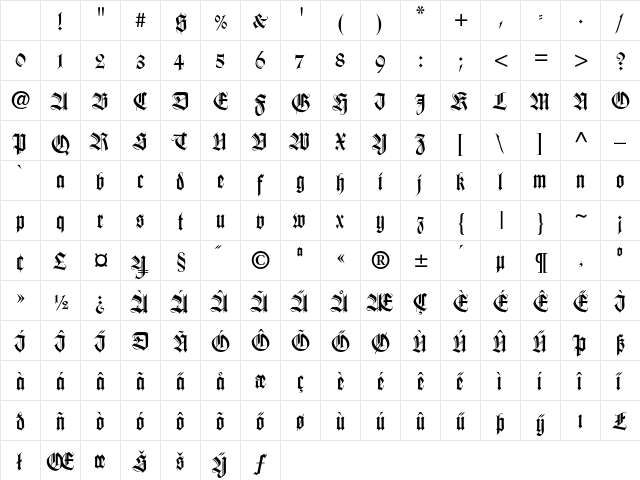
WilhelmKlingsporGotisch Regular
Complete WilhelmKlingsporGotisch Regular glyph index. Displaying only characters natively supported by WilhelmKlingsporGotisch Regular font.
Design Context for WilhelmKlingsporGotisch
WilhelmKlingsporGotisch is a composed and adaptable typeface that performs quietly and consistently across a wide range of design contexts.